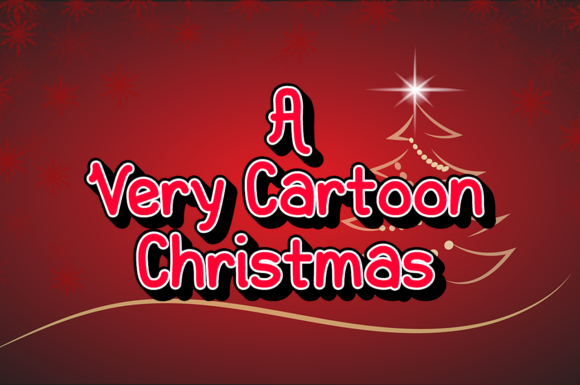
A Very Cartoon Christmas Font: Spreading Holiday Cheer in Your Designs
Ah, Christmas. The season of joy, giving, and – for us designers – the quest for the perfect font to capture it all. I still remember the year I was working on a holiday campaign for a beloved client, and I just couldn’t find a font that screamed “Christmas magic.” That was until I stumbled upon A Very Cartoon Christmas font. It’s been a game-changer ever since, and I’m excited to share its charm with you.
Let’s dive right into the good stuff. Here’s what makes A Very Cartoon Christmas a delightful addition to your font library:
- ✨ Playful and whimsical: This font embodies the childlike wonder of Christmas, making it perfect for designs that aim to evoke nostalgia and joy.
- ✅ Highly legible: Despite its cartoonish nature, A Very Cartoon Christmas remains clear and easy to read, even at smaller sizes.
- 🎉 Versatile: Use it for titles, headings, or even body text in your holiday designs for a consistent and festive look.
Now, onto the quirks:
- 🤔 Limited use outside of holiday themes: While A Very Cartoon Christmas is fantastic for Christmas and winter designs, it might not be the best fit for other projects.
- ⚠️ Some letters may require manual kerning: As with many script and handwritten fonts, you might need to adjust the spacing between certain letters for optimal readability.
The Story Behind A Very Cartoon Christmas
The creator of A Very Cartoon Christmas aimed to bottle the magic of Christmas in a font. Inspired by vintage children’s books and holiday specials, this font brings a sense of nostalgia and playfulness to any design. The designer wanted to ensure that A Very Cartoon Christmas would not only be a beautiful addition to holiday projects but also evoke the joy and wonder of the season.
Q: Is A Very Cartoon Christmas suitable for body text?
A: While A Very Cartoon Christmas is primarily designed for headings and titles, its legibility makes it possible to use for short body text passages, especially in festive contexts.
Q: Does A Very Cartoon Christmas support OpenType features?
A: Yes, A Very Cartoon Christmas includes OpenType features such as stylistic alternates and glyphs, allowing for a customizable and dynamic text appearance.